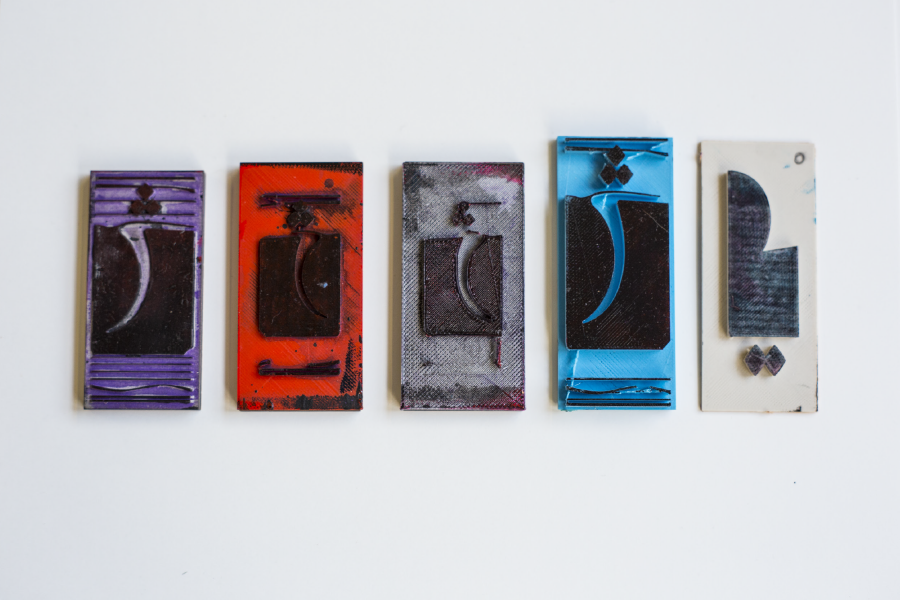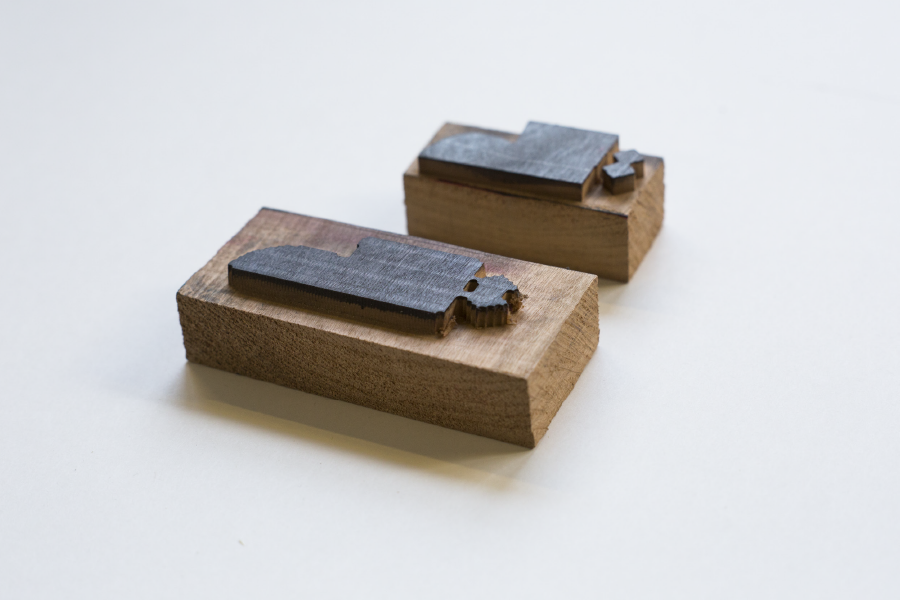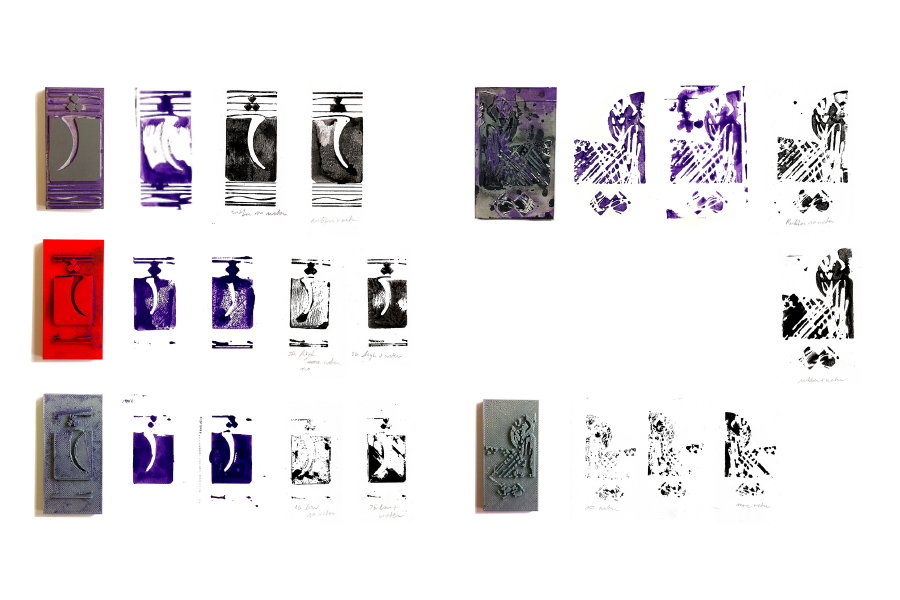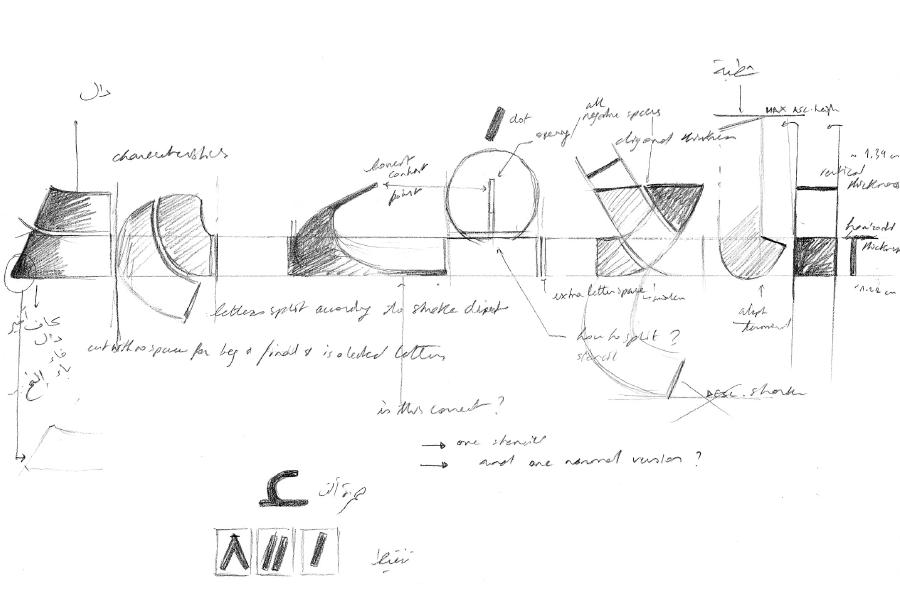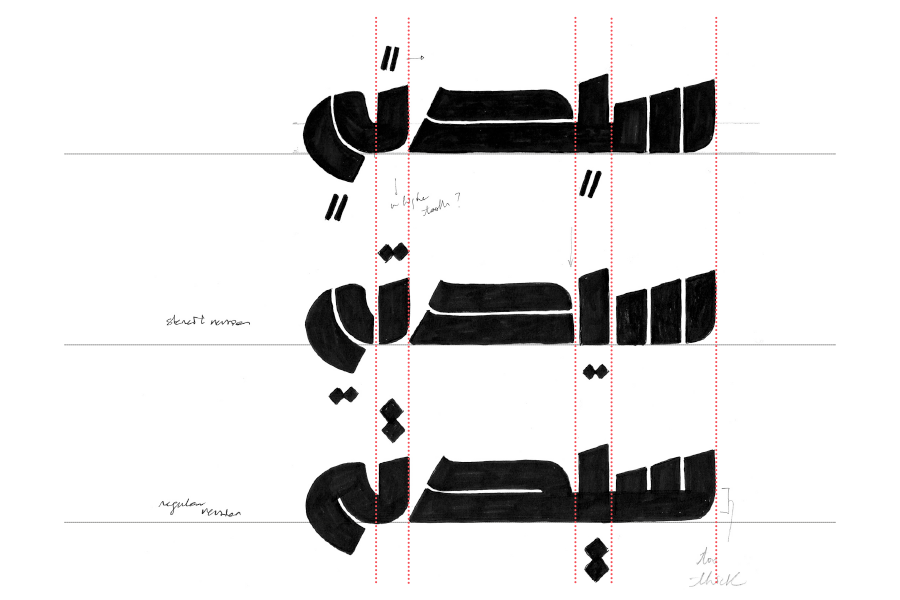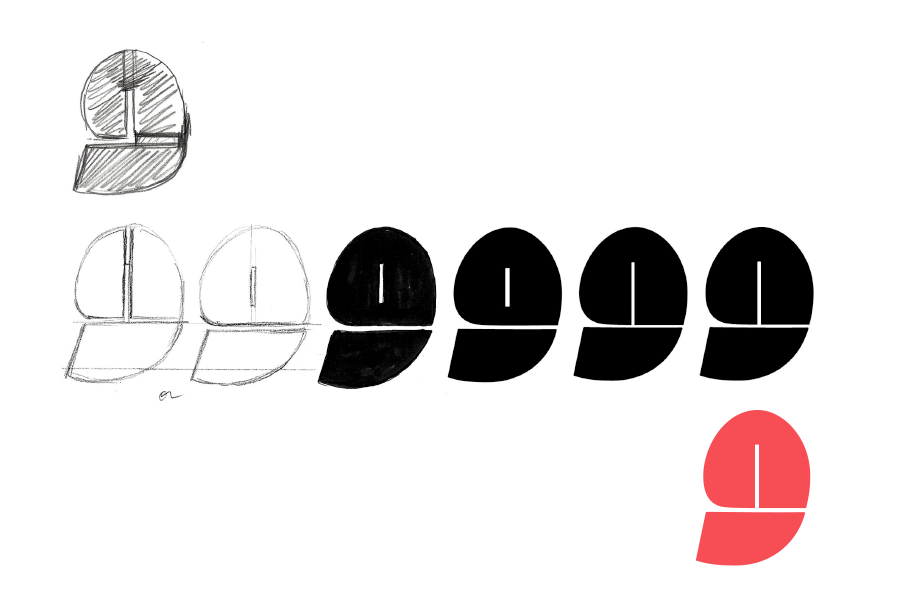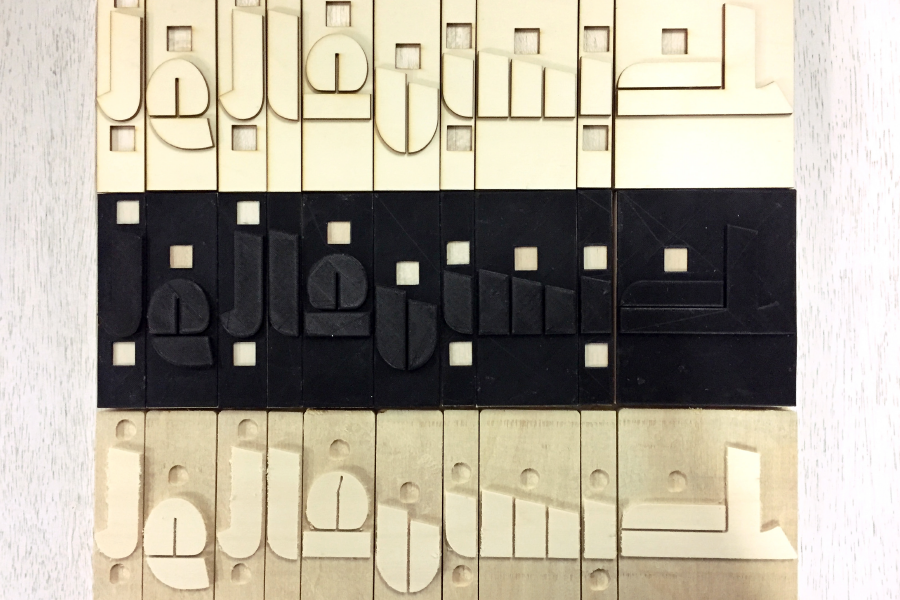
3D printing or laser cutting? (photo by Claudia Willmitzer)
Kanat: The beginning (2014/15)
In October 2014, I was quietly working at my desk – at a FabLab called ZB45 – when Wiek and Corine of the [Typo]Grafische Werkplaats Amsterdam walked in with an idea. They wanted to task the design of letterpress typefaces in “modern” 3D outputting techniques. So the owners of the maker space said: How convenient, we have a type designer right over there!
Of course, I was only interested in designing Arabic fonts and didn’t think an Arabic letterpress typeface would be widely used in Amsterdam. But Wiek and Corine believed there would be an audience for it. So I trusted their judgment and began to sketch.
Before this project, I had a deep love for printmaking as well as prior training in Arabic letterpress technique – thanks to a lovely Lebanese printer called Fadel. He was the owner and printer of the now inexistent Ras Beirut Tipo Press. Without these experiences, I would have been quite overwhelmed starting this project.
I was motivated; at that moment, my work was centered around defying the idea of treating the Arabic script like Latin (which, to me, meant designing Arabic characters in separate “boxes”). So I thought it would be fun to challenge my ways and ask: How would I create an Arabic typeface for moveable type technology, to do the opposite of what I envision for Arabic, and design letters in boxes?
Now where does one begin to address this type of project: with the technique or concept?
A few aspects were clear from the start: In its shaping, I decided to create a detached Arabic typeface to “naturally” fit the vertical separation of characters in letterpress technology. And I imagined the letters would be pretty bold, with short ascenders and descenders, to generate a compact effect. In technique, I would need to explore the different 3D technologies extensively since I had little knowledge of these methods. Experimentation in technique, therefore, became my starting point.
Technique: wood, rubber, or plastic?
My initial tests explored texture types and line thicknesses. How thick can a line be? How thin can a negative space be? Do they break or disappear in specific 3D techniques? How curved can a curve be? Does anything happen to the curve architecture between the digital and the physical output?
I was searching for the graphic possibilities and limitations of the three techniques I had at hand in the FabLab: 3D printing, laser-cutting, and CNC milling. You can imagine that the letters must be quite strong to withstand frequent inking, cleaning, and mostly the weight of a giant metal drum rolling over them for years and even decades or centuries at the printing press. So I designed pilot shapes containing different stroke thicknesses, negative space thicknesses, and curve speeds to test which parts would remain intact and which would fall apart because of the material or the heavy use of a press.
First tests (top two photos by Claudia Willmitzer)
Form: detached yet connected to history (2016)
In search of a graphic direction, I searched for wood typefaces in the history of Arabic script. But I couldn’t find much except for the following two examples: One was a missing block for the Roman Scherer A.G. Holzletternmanufaktur Arabic letters produced by Dafi Kühne. Unfortunately, I could not reach Dafi in time to ask about its story. And the second example was sent to me by Onur Yazicigil. It was a title block in Thuluth script from the Bulaq Press in Cairo. And that was it! I did keep in mind how the dots of the letters were built as changeable inserts in the Holzletternmanufaktur Arabic.
Left: Dafi's Holzletternmanufaktur Arabic. Right: Onur's Bulaq Press woodtype
In terms of form, there have been several past attempts at making detached Arabic typefaces. In Lebanese script history, architect and designer Nasri Khattar is the most notable one. You can read more about his experiments in Yara Khoury's book: Nasri Khattar, a Modernist Typotech, published by Khatt Books, 2014.
Sketches of Unified Arabic typeface by Nasri Khattar, AUB Library Special Collections, personal photo
In my design process, I decided to choose a script source to base my decisions on. It seemed logical to begin with Primary Kufic since it’s one of the more geometric script styles and a style that I simply love. It also has an intrinsic boldness that I imagined for this letterpress typeface (at large type size) and is challenging because it is already pretty abstract. My design problem was, therefore: How to abstract a script that’s already innately highly geometric? How to make it detached? And how to make it more readable for modern readers (because it contains letter shapes that could now be ambiguous and misread by people)?
Primary Kufic, Single folio, 9th century ad, 20.8 × 27.8 cm. In: François Déroche. The Abbasid Tradition: Qur'ans of the 8th to the 10th centuries, The Nasser D. Khalili Collection of Islamic Art, vol.I. London: Nour Foundation, 1992.
Development of the Kanat letterpress typeface (2016/17)
I followed different models of the Primary Kufic (instead of relying on only one). I also consciously broke many of the rules of letter connectivity in the Kanat to reduce the number of wood blocks in the typeface as much as possible: Given the scarcity of resources in the world, it was important to me to limit the number of plastics or wood used for the production of the typeface.
In terms of characteristics: The letters are bolder than in the Primary Kufic. The general contrast follows the contrast placement of newer Arabic script styles, meaning the vertical strokes are thinner than the horizontal ones. (It’s usually (but not always) the other way around in the Primary Kufic.) The counter shapes are also open on one or two sides for a higher geometric impact in the design.
Characteristics as originally sketched
It was time to return to the production process, with the design system now being mainly established. I’ve explored many ways of building the letters: Should they be modules with loose dots or full dotted characters (image of modules and flexible dots)? I’ve reconsidered the detachment level of the typeface: Would the typeface be fully attached, semi-detached, or fully detached (image of the sketch)? What would the typeface’s final size be? And how thin could the counters go?
Sketch of the different stencil levels
Evolution of letter Waw from the first sketch to the final digital drawing (in red)
To answer these questions, I tried one sentence in different outputting processes. It was time to decide which technique to adopt finally. I had narrowed my options to 3D printing using flexible plastic and CNC-milling (in wood). And I compared the results with wood laser-cutting because the laser cutter rendered the most accurate shapes.
Test sentence in CNC, 3D printing and Laser-cutting and the prints
Even though 3D printing (using one of the earlier Ultimaker machines) gave an attractive, industrial texture, I didn’t want to use so much plastic. Also, each letter took 9 hours to print, and I would still need to mount the 3D print on a base to reach Dutch type height. There was also the worry of letters becoming more and more fragile over time and use.
Together with Rudi Oostermeijer of the GWA, we observed that the wood yielded a beautiful, warm texture. And the production would be more practical because letters could be carved and cut into one piece. Of course, there are higher-level 3D printing machines where this would also be possible, but I didn’t have the budget for this kind of production.
Challenging characters evolution
Characteristics of the Kanat in 2017 before becoming the wood typeface.
So the Kanat wood typeface came to life at a type size of 189pt, in Dutch type height, and produced in pear wood using CNC-milling (with two different blades, thanks to the craftsmanship and dedication of Rutger Paets). One of the last production questions was: How many sorts do we need for each character? Since the local migrant population in Amsterdam predominantly writes in Arabic, I decided to cover a glyph set suitable for the Arabic language. So I counted the frequency of letters in different texts and made an average based on the type size and maximum printing width for the presses at the GWA.
We ended up with a total of 167 blocks in February/March 2017.
Kanat wood type
Images of the milling, and first use of the Kanat Wood (last two photos by Claudia Willmitzer)
I’m still slowly looking for another craftsperson to produce the punctuation, Persian, and Kurdish characters and to repeat some characters that changed in the improved digital partner of the Kanat Wood typeface. And I will probably venture into another design for an Arabic letterpress typeface sometime in the future.